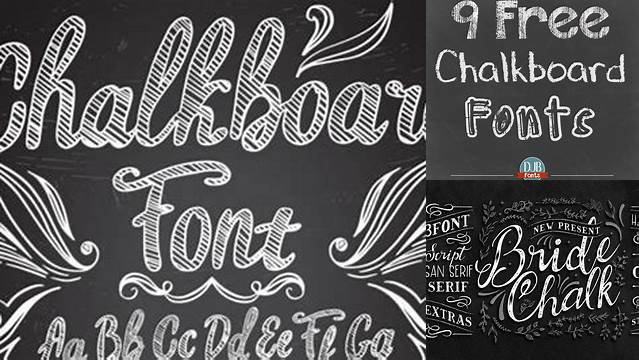
Hey everyone! Are you looking to add a touch of vintage charm and a dash of playful personality to your designs? Well, you're in luck because we're diving deep into the world of Chalkboard SE fonts, and the best part? You can download them for free! These fonts are perfect for a whole range of projects, from crafting eye-catching social media graphics and creating stunning invitations to designing websites with a unique, hand-drawn feel. Get ready to unleash your creativity and explore the fantastic world of chalkboard-style typography. So, buckle up, grab your virtual chalk, and let's get started. In this comprehensive guide, we'll explore everything you need to know about Chalkboard SE fonts, including where to find them, how to use them, and some cool design tips to make your projects stand out. Let's make some magic!
Chalkboard Fonts: The Ultimate Guide
Chalkboard fonts, also known as chalk fonts or chalkboard style fonts, are a fantastic way to bring a relaxed, handcrafted vibe to your projects. They mimic the look of real chalk on a chalkboard, instantly adding a touch of nostalgia and a sense of fun. Think of it like bringing the cozy atmosphere of a coffee shop menu or a vintage schoolhouse right into your designs. What makes chalkboard fonts so popular? Their versatility! They can be used in so many different ways, from creating headings and titles to designing entire layouts. The slightly imperfect, hand-drawn look of these fonts adds character and warmth that you just can't get with clean, crisp digital fonts. If you're aiming to connect with your audience on a more personal level, a chalkboard font could be the perfect choice. Are you ready to learn more?
Chalkboard SE Font Styles and Variations
When you start your search for Chalkboard SE fonts, you'll quickly realize that there's a whole variety of styles and variations available. You can find fonts that are clean and precise, mimicking a perfectly written chalkboard. Or, you might prefer fonts that are more rough and textured, giving the impression of chalk that's been worn down or smudged. Some fonts are bold and attention-grabbing, great for headings and titles. Others are more delicate and subtle, perfect for body text or smaller details. You might also come across fonts with different effects like shadows, outlines, or even built-in textures. These added elements can enhance the overall chalkboard effect and make your designs even more visually appealing. Before you make your decision, consider your specific project. What kind of mood or message are you trying to convey? If you're designing a formal invitation, you might want to choose a cleaner, more elegant chalkboard font. But if you're working on a fun and playful project, a rougher, more textured font might be more suitable. You can also combine different chalkboard fonts in the same project to create visual interest.
Finding the Right Chalkboard SE Font for Your Project
Choosing the right chalkboard font can make or break your design. First things first, what's the overall feel you're going for? Do you want something that's super professional, or are you leaning toward a more casual and friendly vibe? Next, take a look at the specific project. Are you creating a logo, designing a website, or making a social media post? Each project has its own unique requirements, and the font you choose should align with those needs. When you're browsing through different fonts, pay close attention to their legibility. Can you easily read the text, even at smaller sizes? Remember, the goal is to communicate your message effectively, so your chosen font should be easy on the eyes. And don't forget to consider the overall design of your project. The chalkboard font you choose should complement other design elements like images, colors, and layout. Does the font fit in with the rest of your design? Does it enhance the overall visual appeal? Before you commit to a font, I suggest testing it out! Experiment with different sizes, weights, and styles to see how it looks in your design. Play around with different color combinations and see how the font interacts with the other elements of your project.
Designing with Chalkboard SE Fonts: Tips and Tricks
So, you've downloaded your Chalkboard SE font! But where do you start? Here are some design tips and tricks to help you make the most of these fantastic fonts: Choose the right context: Think about what you're trying to convey. A rough, textured font might work perfectly for a casual project, while a cleaner font would be better for a professional setting. Pair with complementary fonts: Don't be afraid to combine a chalkboard font with other font styles. A sans-serif font can be a great partner for a chalkboard font. Experiment with size and weight: Try different sizes and weights to see what looks best. Sometimes, a bold, larger-sized chalkboard font can create a striking effect. Use color strategically: You can create a classic chalkboard effect by using white or light-colored fonts on a dark background. Or, play with other colors to create a unique look. Add a touch of texture: To enhance the chalkboard effect, add a subtle texture to your design, like a paper texture or a chalkboard overlay.
Creating Stunning Visuals with Chalkboard SE Fonts
Once you've mastered the basics, you can start experimenting and getting creative. Here are a few ideas to get you started: Social Media Graphics: Use chalkboard fonts to create eye-catching social media posts. Invitations and Greeting Cards: Design personalized invitations and greeting cards with a vintage feel. Website Design: Add a hand-drawn touch to your website by using chalkboard fonts for headings and other design elements. Logos and Branding: Create unique logos and branding materials that capture the essence of your brand. The possibilities are endless! The key is to have fun and let your creativity flow.
Chalkboard SE Fonts and Design Software
Whether you're a seasoned designer or just starting, you'll want to know which software works best with Chalkboard SE fonts. Thankfully, these fonts are compatible with a wide range of design software programs. Here's a quick rundown of some popular options: Adobe Photoshop: Photoshop is the industry-standard image editing software, so you can create and edit your designs. Adobe Illustrator: Illustrator is a vector graphics editor, perfect for creating scalable graphics like logos and illustrations. Canva: Canva is an online design tool that is user-friendly for anyone. Microsoft Word: If you're working on documents or presentations, Microsoft Word will work like a charm. The best design software is the one you're most comfortable with and fits your needs. Once you've installed your Chalkboard SE font, it will be available in the font menu of all these programs. You can then start using the font in your designs.
Mastering the Art of Using Chalkboard SE Fonts
By following these tips and guidelines, you can master the art of using Chalkboard SE fonts in your designs. You can create beautiful visuals, enhance your creativity, and bring your design ideas to life. Embrace the power of chalkboard fonts and take your design projects to the next level. So go ahead, start downloading, experimenting, and let your creativity soar. Happy designing!